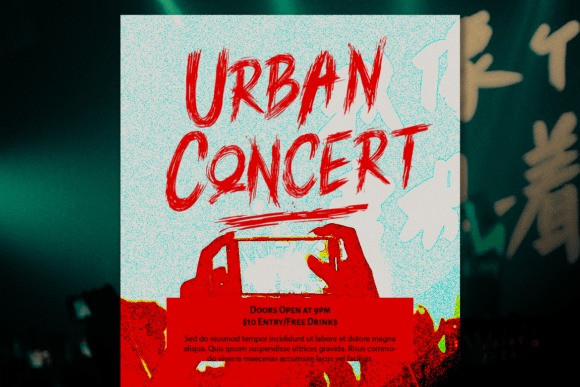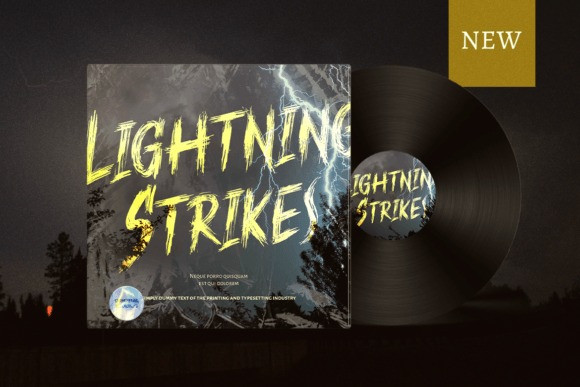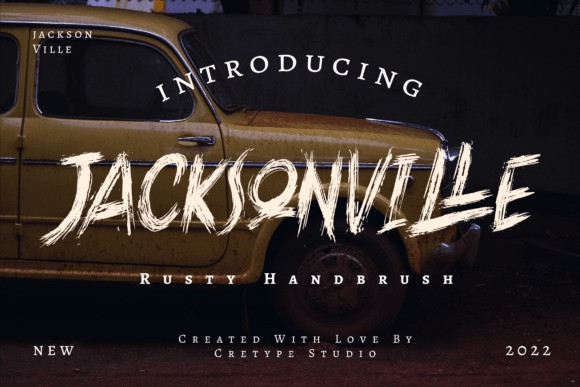
Jacksonville Font
Jacksonville Hand Brush Font is a rusty, innovative, and catchy font. The fierce calligraphy will make your design projects more attractive and easily remembered by everyone. The font is PUA encoded which means you can access all of the glyphs and ligatures effortlessly!